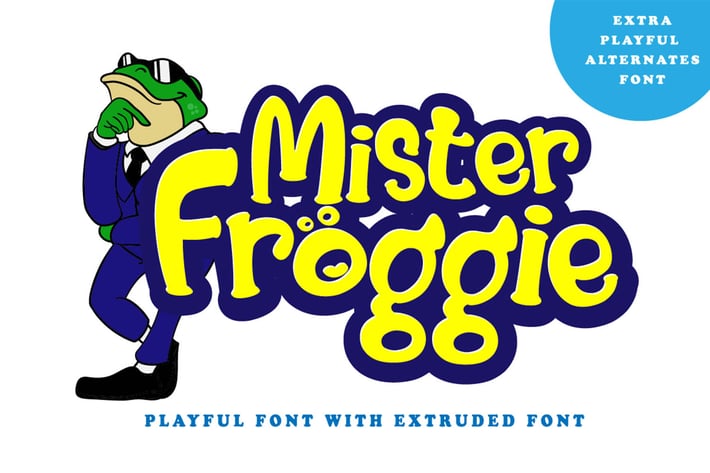
Mister Froggie - Display Font
Introducing Mister Froggie
the playful one with an extruded font. This font is suitable for logos, branding projects, product packaging, quotes, book covers, greeting cards, and other projects of yours.
- Stylistic Alternates
- A Full Set of Lowercase and Uppercase
- Accents (Multilingual Characters)